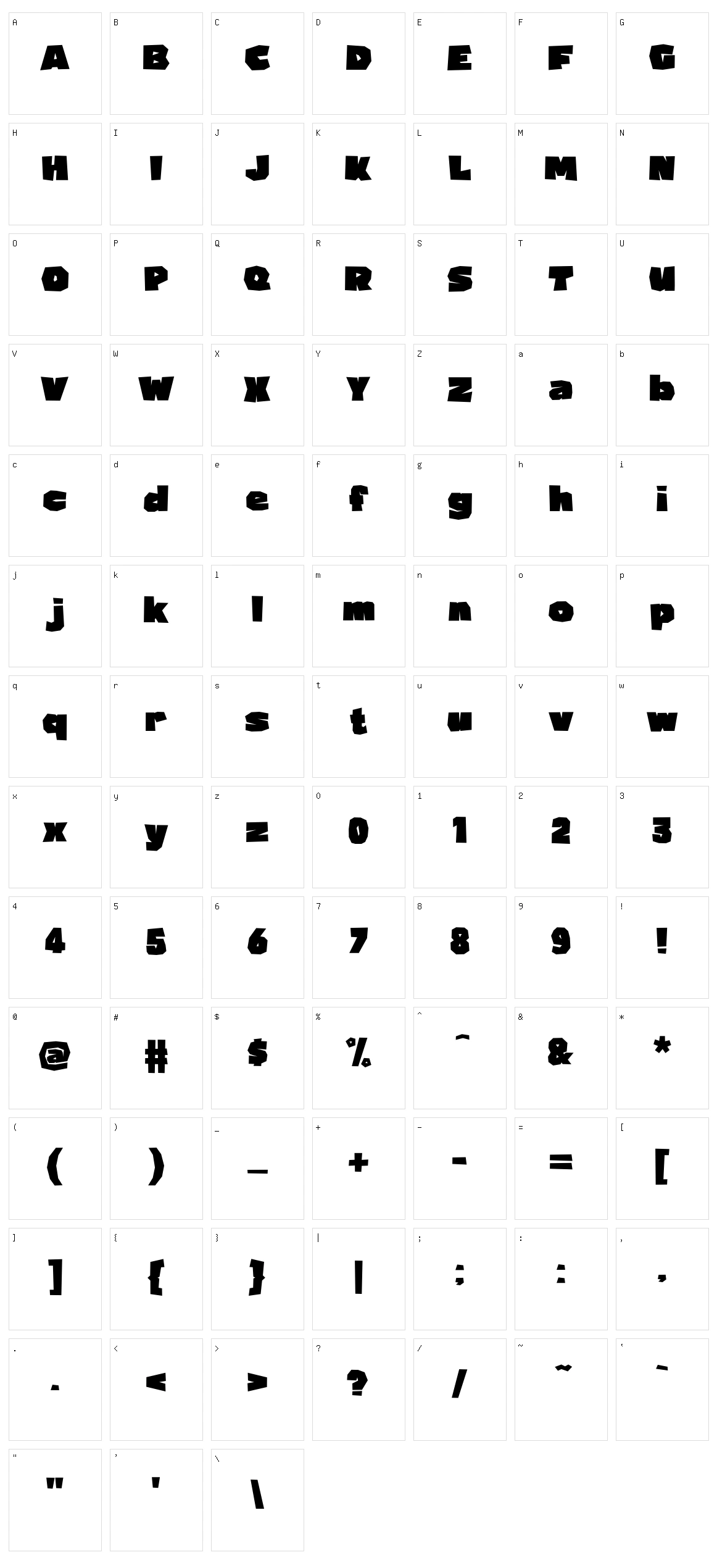
The free font Osmanthus is carefully designed by LeFly Fonts, showcasing a thoughtful balance of creativity and usability and falls under the Cartoon font style. When you download the ZIP file, it contains only 14.88 KB of font files, making it lightweight and quick to download. Please review the license details below to understand permitted usage and distribution rights. If license information is not available, we recommend using this font for personal projects only or contacting the author directly for commercial usage permissions.